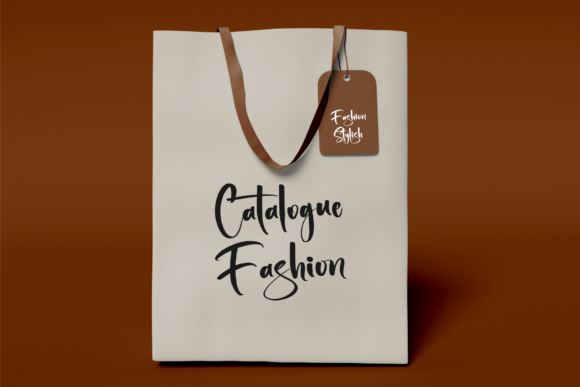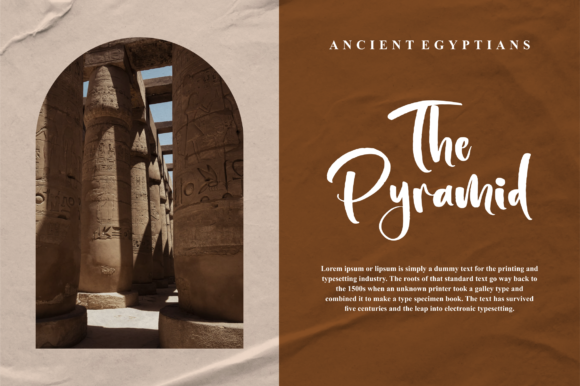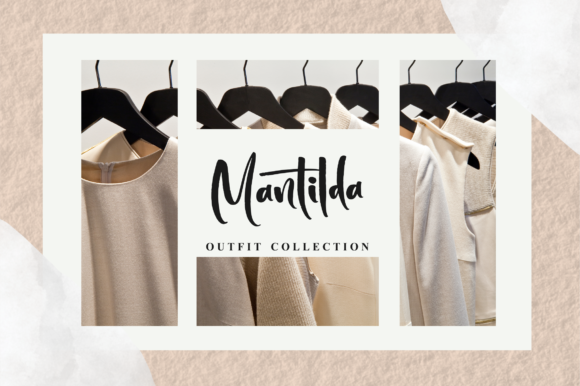
Introduction to Monttas Raillary Font
Monttas Raillary is a beautiful script font.
It is suitable for any projects such as: logos, branding projects, homeware designs, product packaging, mugs, quotes, posters, shopping bags, t-shirts, book covers, name card, invitation cards, greeting cards, label, photography, watermark, special events, and all your other lovely projects that need a beautiful script taste .
Monttas Raillary Font offers exceptional quality and versatility, making it a valuable addition to your design toolkit. Whether you’re creating for personal projects or commercial use, Monttas Raillary Font delivers professional results.